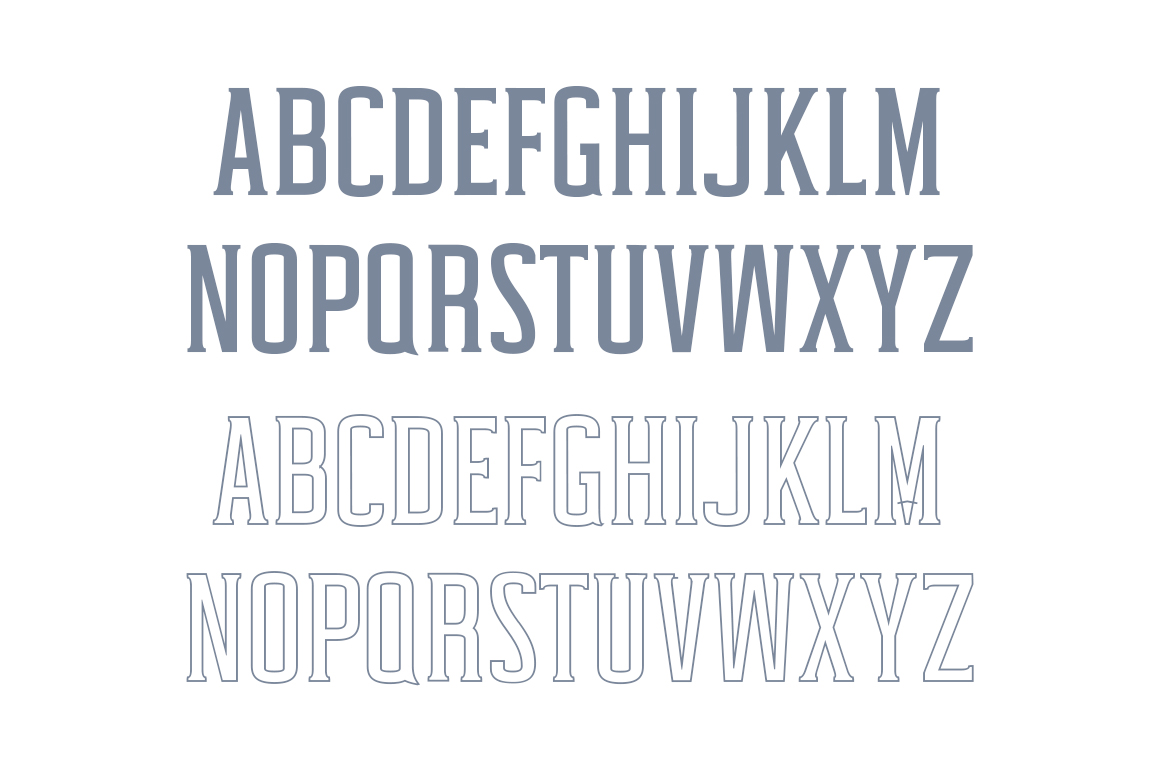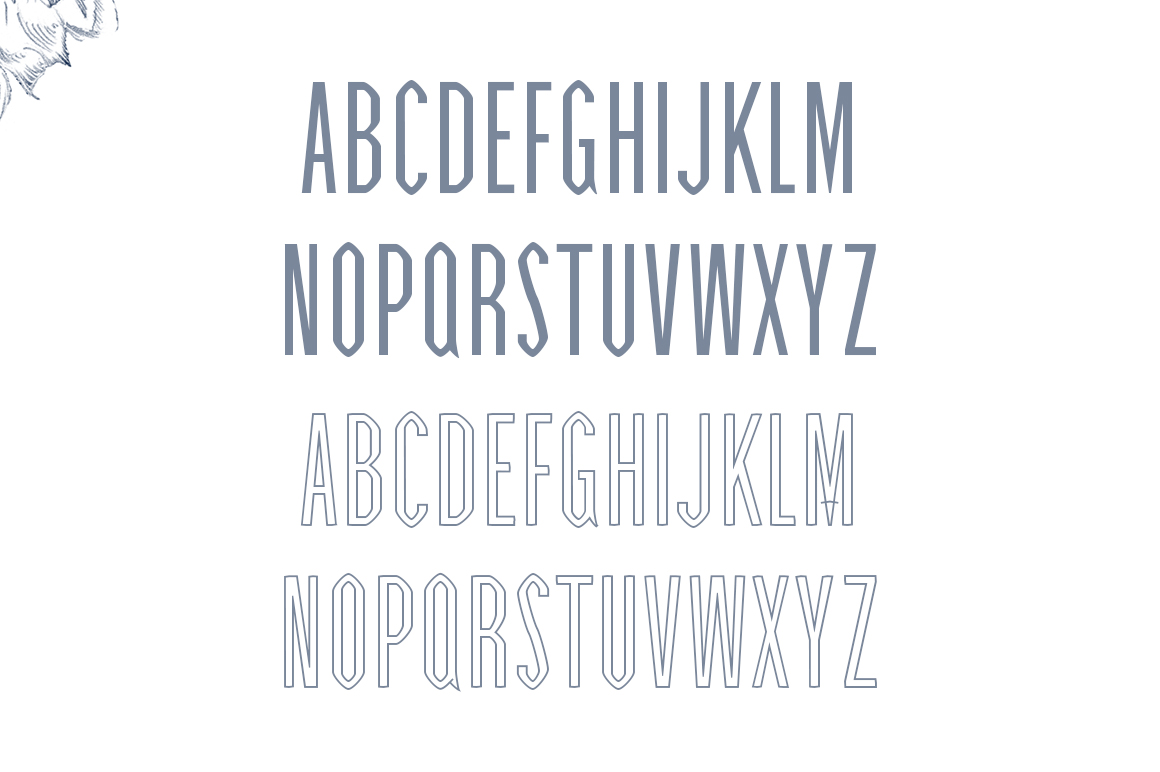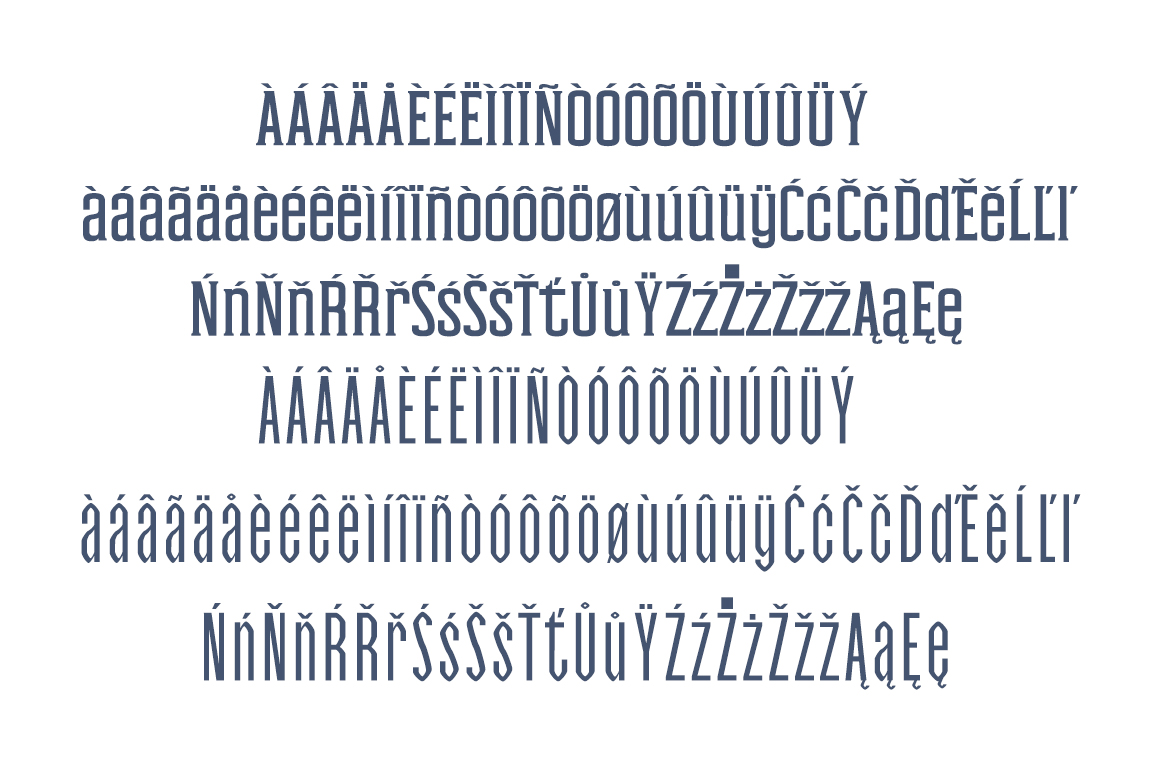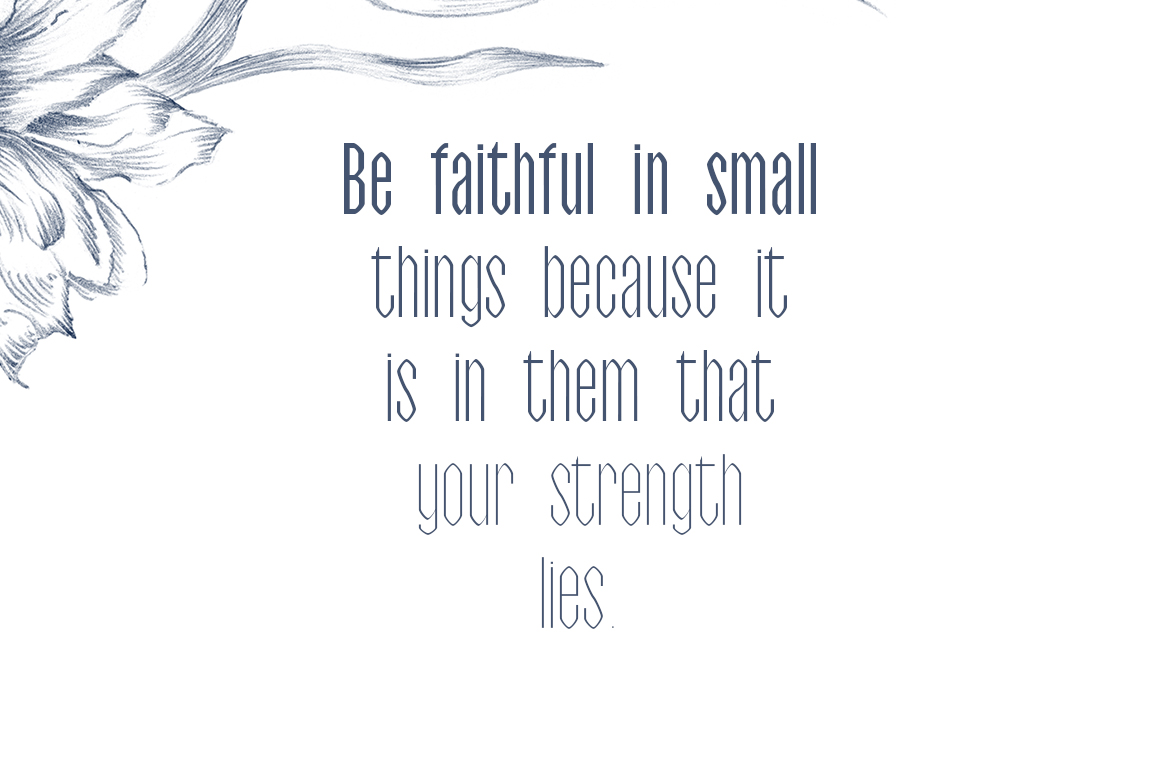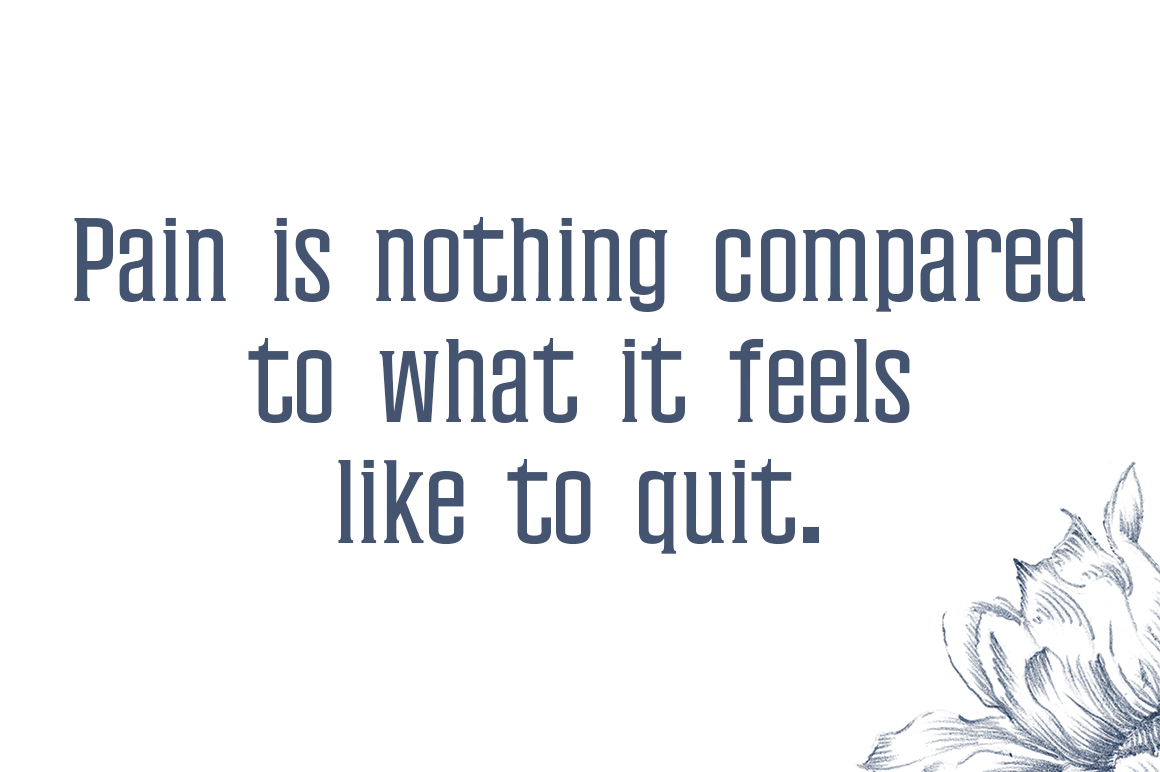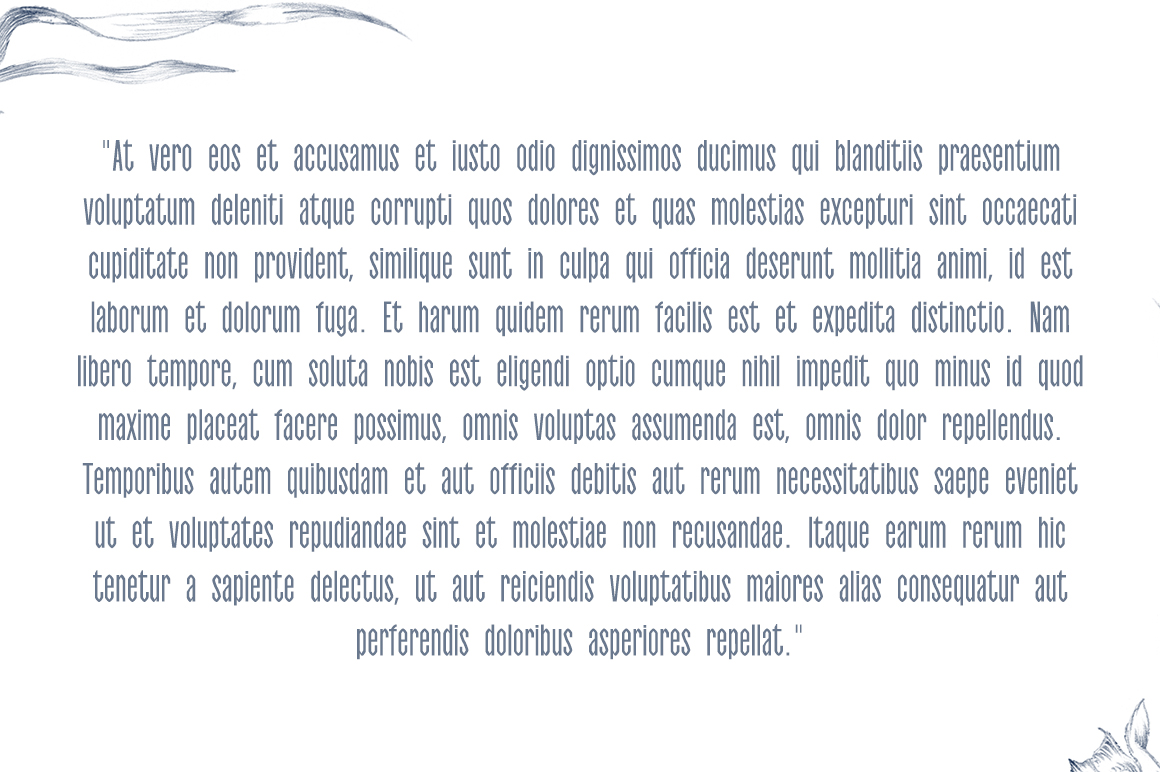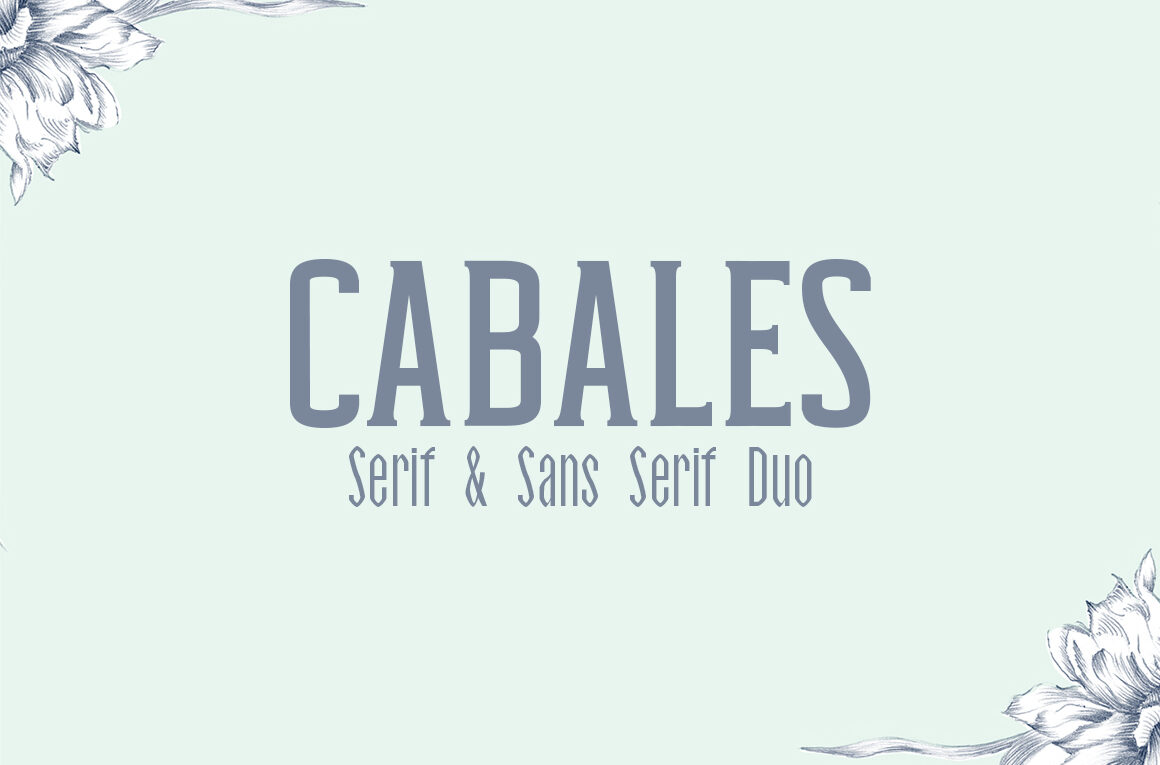
Cabales Font: Elevate Your Design with this Stunning Dual Sans Serif & Serif Font Duo
Are you tired of using the same old fonts in your designs? Look no further than the Cabales Font, a dual sans serif & serif font duo that’s sure to take your work to the next level. In this article, we’ll dive into the features and benefits of the Cabales Font, and explore how it can be used to create stunning designs for quotes, branding, packaging, logos, headlines, and body text.
A Classy Look with Wide-Set Spacing
One of the standout features of the Cabales Font is its gorgeous all-caps setting with wide-set spacing. This creates a classy look that’s perfect for designs where you want to make a statement. The wide spacing gives each letter room to breathe, resulting in a clean and sophisticated aesthetic that’s sure to impress. Whether you’re designing a logo, headline, or quote, the Cabales Font is sure to add a touch of elegance to your work.
Dual Sans Serif & Serif Font Duo
The Cabales Font is a dual font duo, featuring both sans serif and serif options. This means you can choose the font that best suits your design needs. The sans serif font is perfect for modern and minimalist designs, while the serif font adds a touch of sophistication and elegance. Having both options at your disposal gives you the flexibility to experiment with different looks and find the one that works best for your project.
Ideal for a Variety of Design Applications
The Cabales Font is incredibly versatile, making it ideal for a wide range of design applications. Here are just a few examples of how you can use this stunning font duo:
• Quotes: The Cabales Font is perfect for designing inspirational quotes, with its classy look and wide-set spacing making it easy to read and visually appealing.
• Branding: Use the Cabales Font to create a strong brand identity, with its unique and sophisticated aesthetic helping to set your brand apart from the competition.
• Packaging: The Cabales Font is ideal for packaging design, adding a touch of elegance and sophistication to your product packaging.
• Logos: Create a stunning logo with the Cabales Font, its unique and memorable aesthetic helping to make your logo stand out.
• Headlines: Use the Cabales Font to create attention-grabbing headlines that draw the reader in and make them want to learn more.
• Body Text: The Cabales Font is also suitable for body text, its clear and readable aesthetic making it perfect for longer blocks of text.
Why Choose the Cabales Font?
So why choose the Cabales Font over other fonts on the market? Here are just a few reasons why this stunning font duo stands out:
• Unique Aesthetic: The Cabales Font has a unique and sophisticated aesthetic that’s sure to make your designs stand out.
• Versatility: The font duo is incredibly versatile, making it suitable for a wide range of design applications.
• Easy to Read: The Cabales Font is clear and easy to read, making it perfect for both headlines and body text.
• Classy Look: The font’s wide-set spacing and all-caps setting create a classy look that’s perfect for designs where you want to make a statement.
In conclusion, the Cabales Font is a stunning dual sans serif & serif font duo that’s sure to elevate your designs to the next level. With its unique aesthetic, versatility, and classy look, this font duo is perfect for a wide range of design applications, from quotes and branding to packaging and body text. So why settle for a boring, generic font when you can use the Cabales Font to create stunning designs that stand out from the crowd?